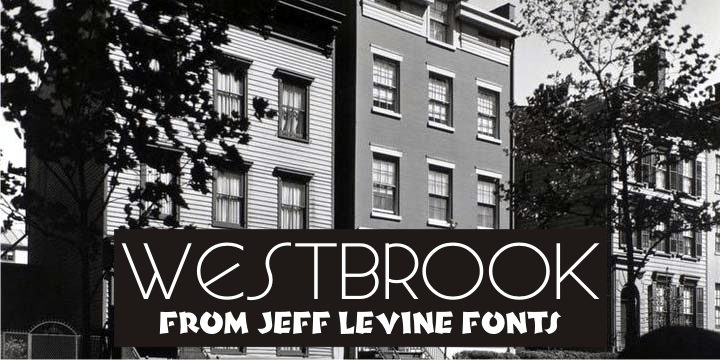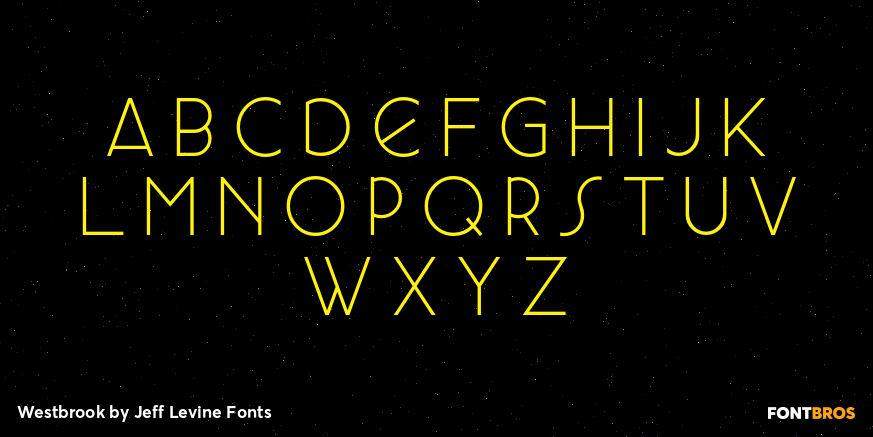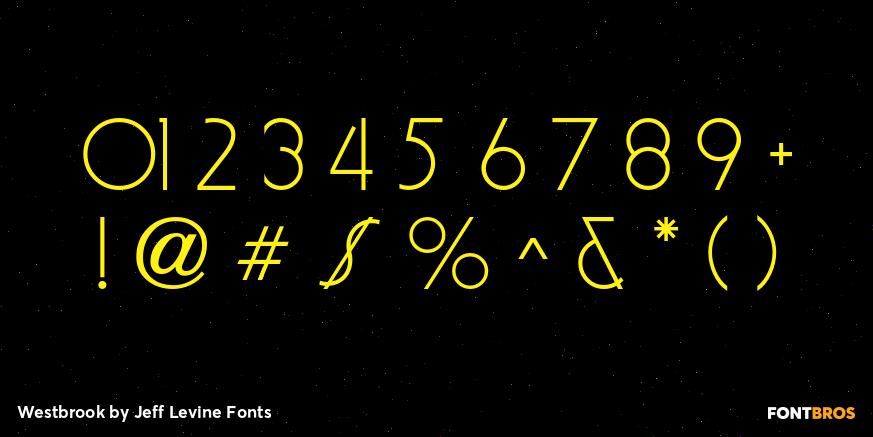
Westbrook
Westbrook JNL is a simple monoline all-caps font with a strong Art Deco feel. It's light, delicate appearance is great for announcements, ads and retro materials that wish to evoke the elegance of the 1930s and 1940s.